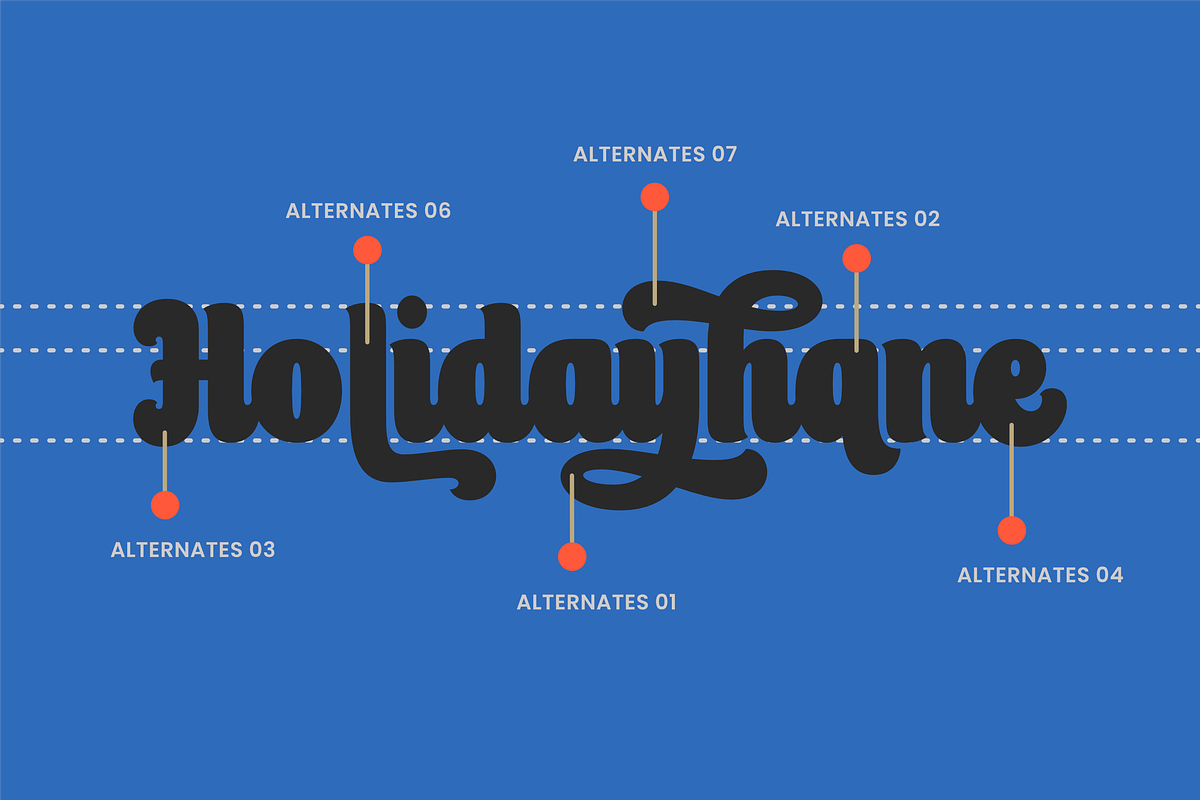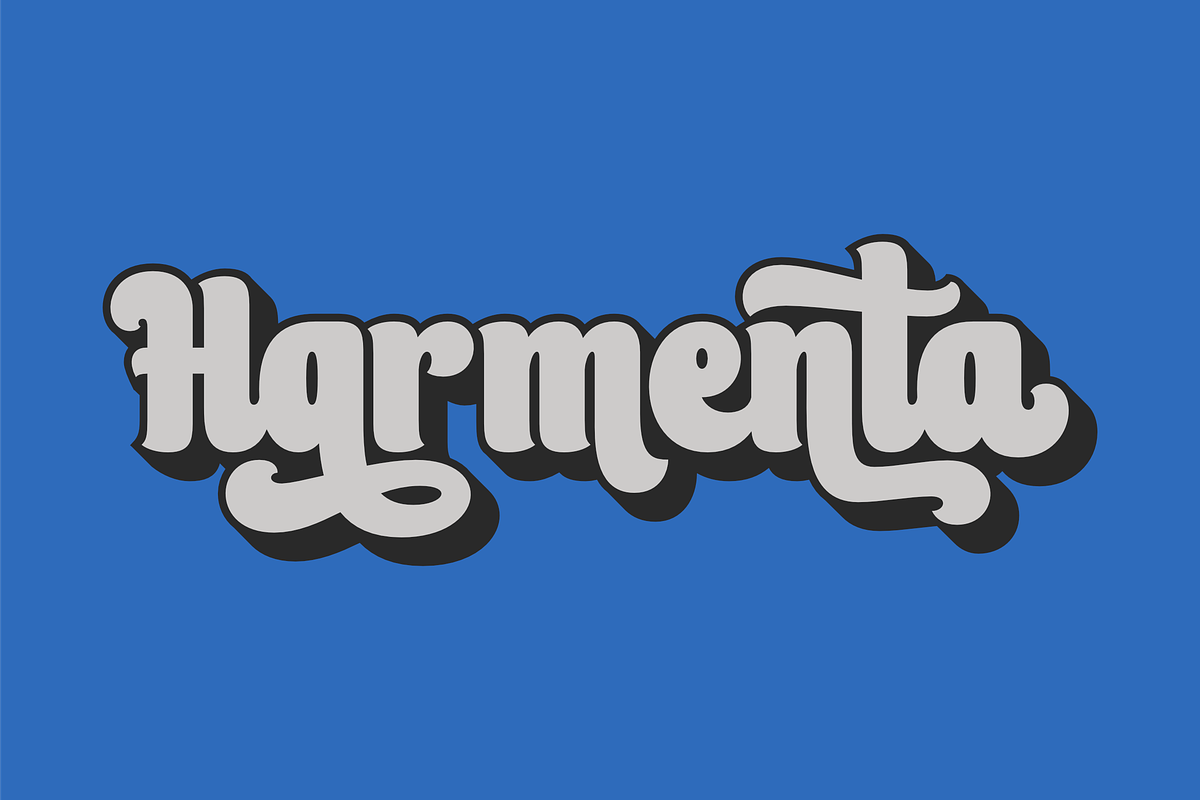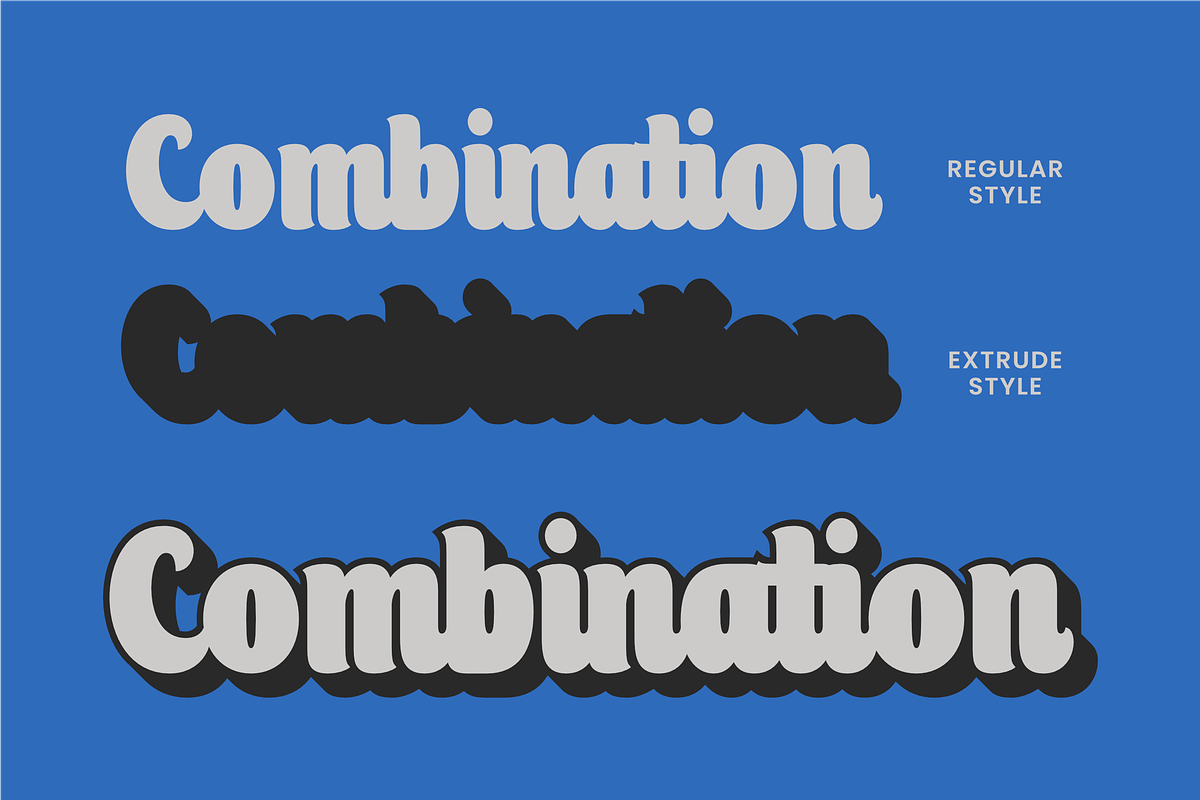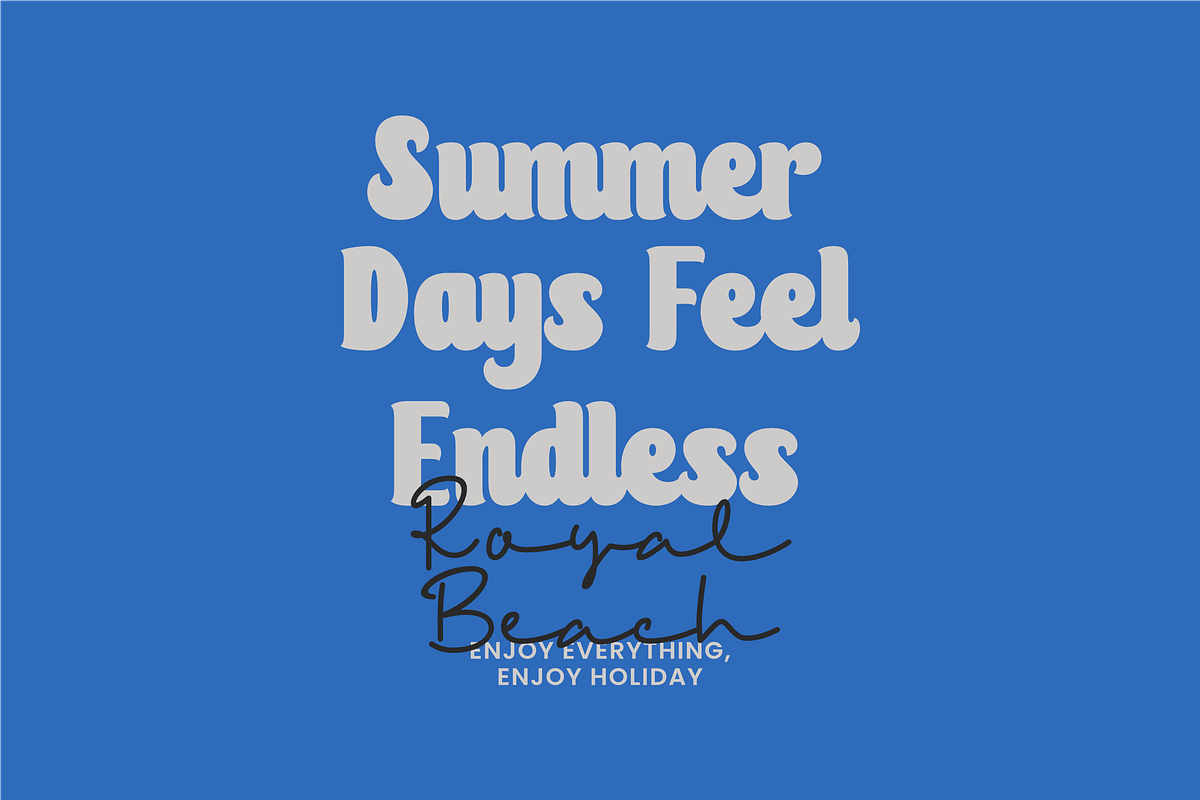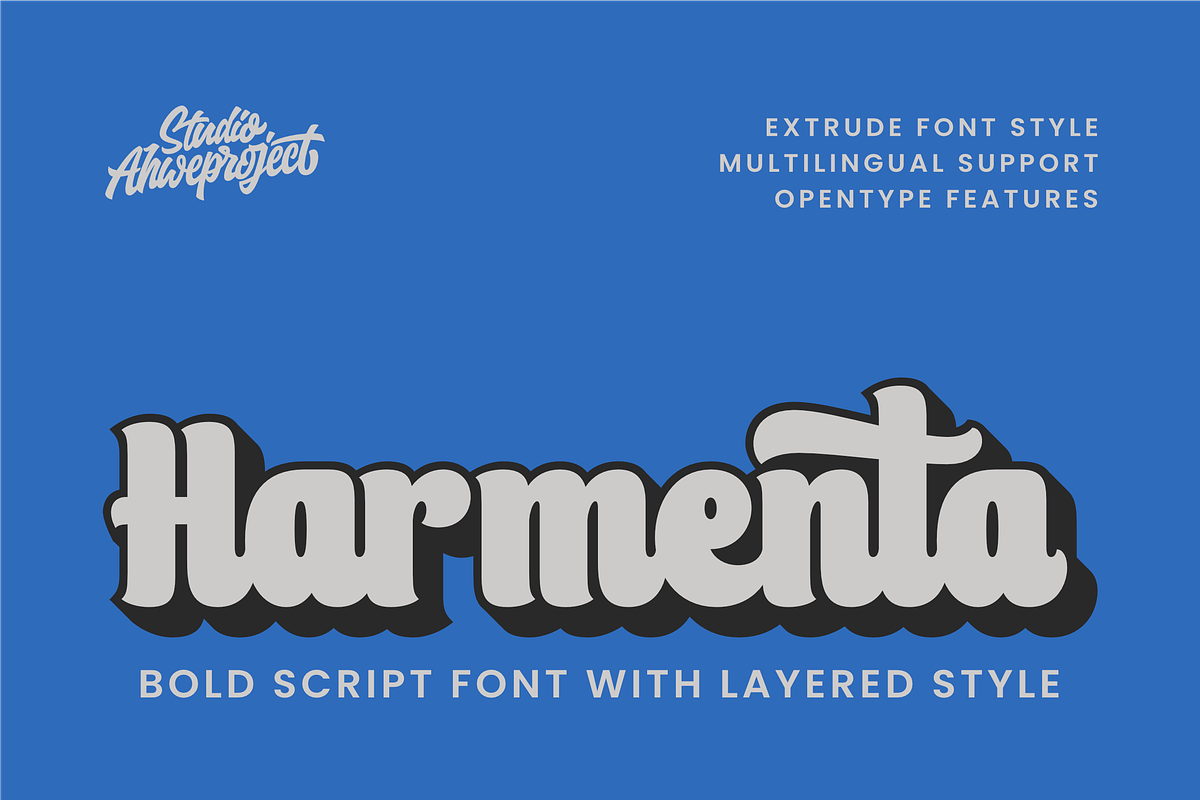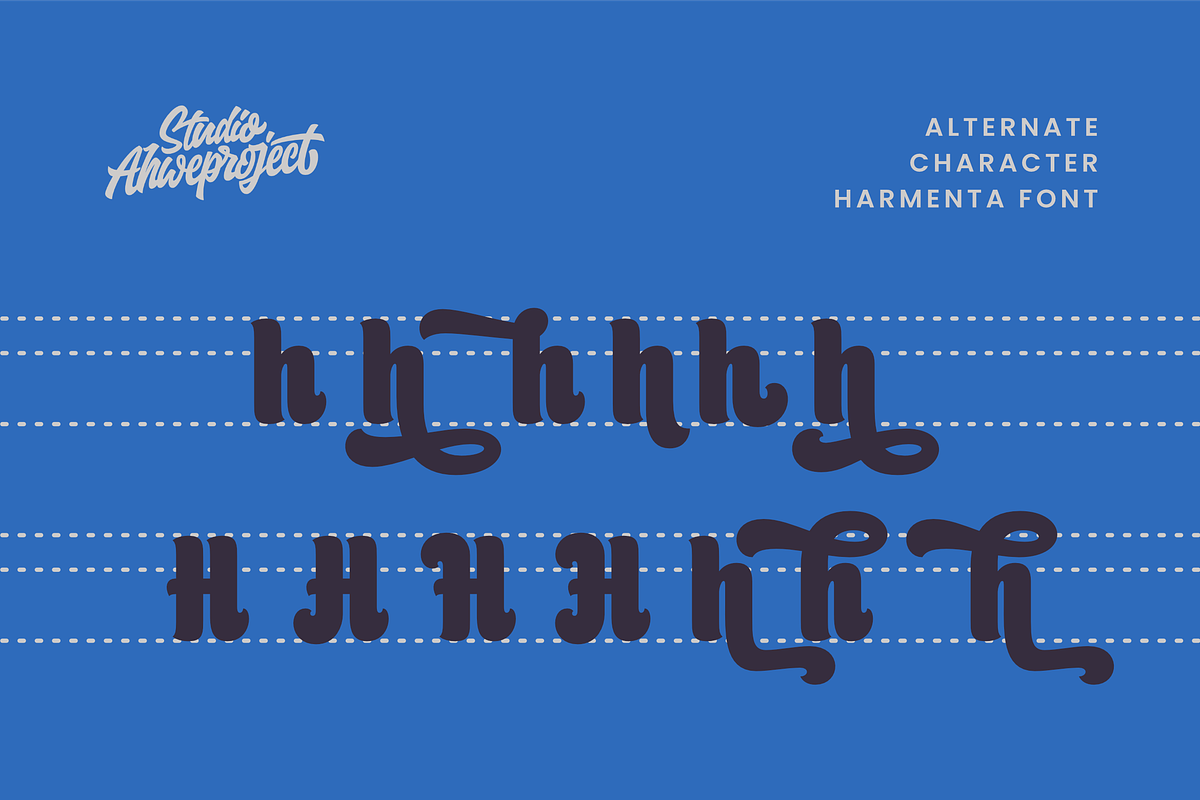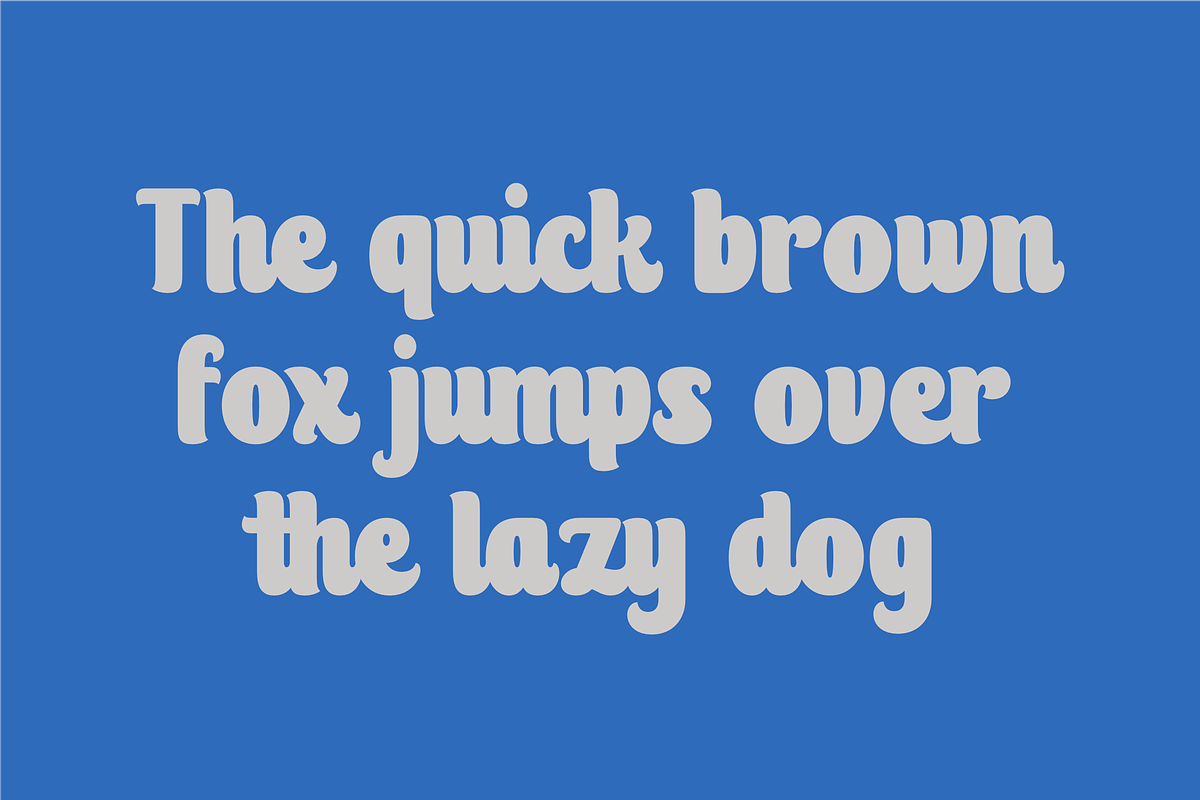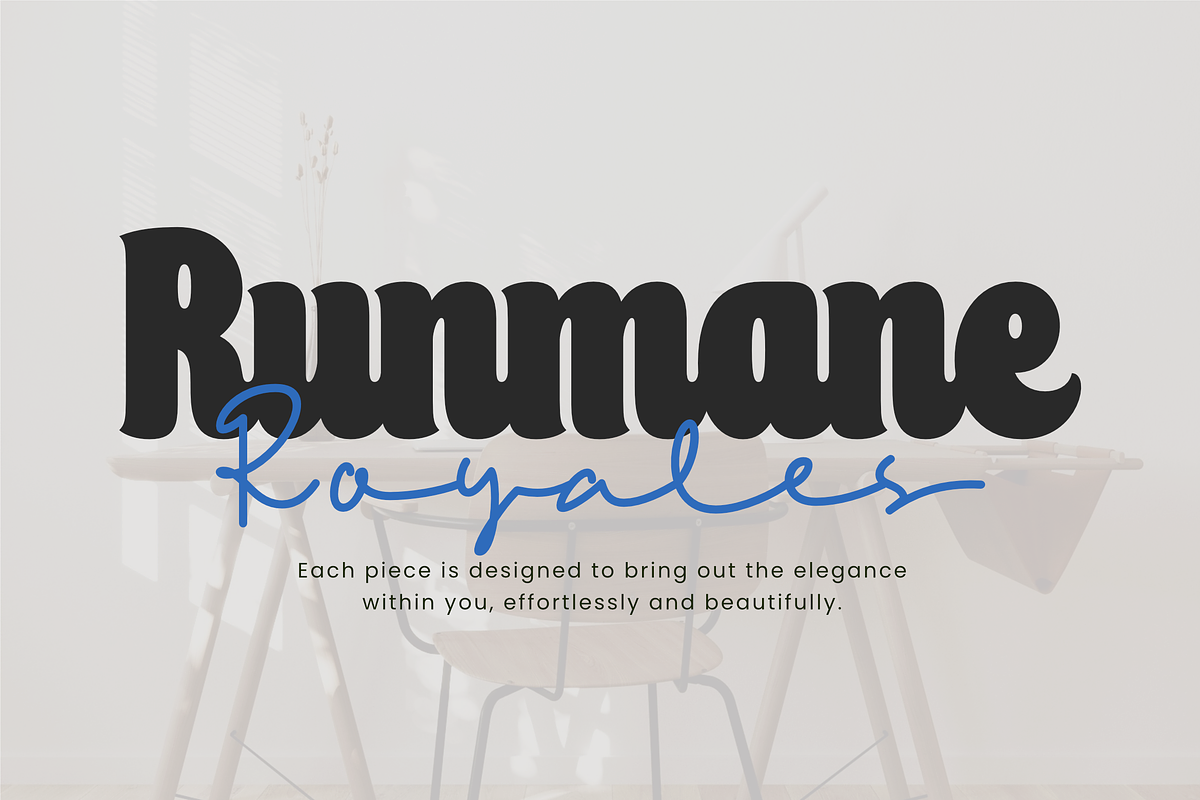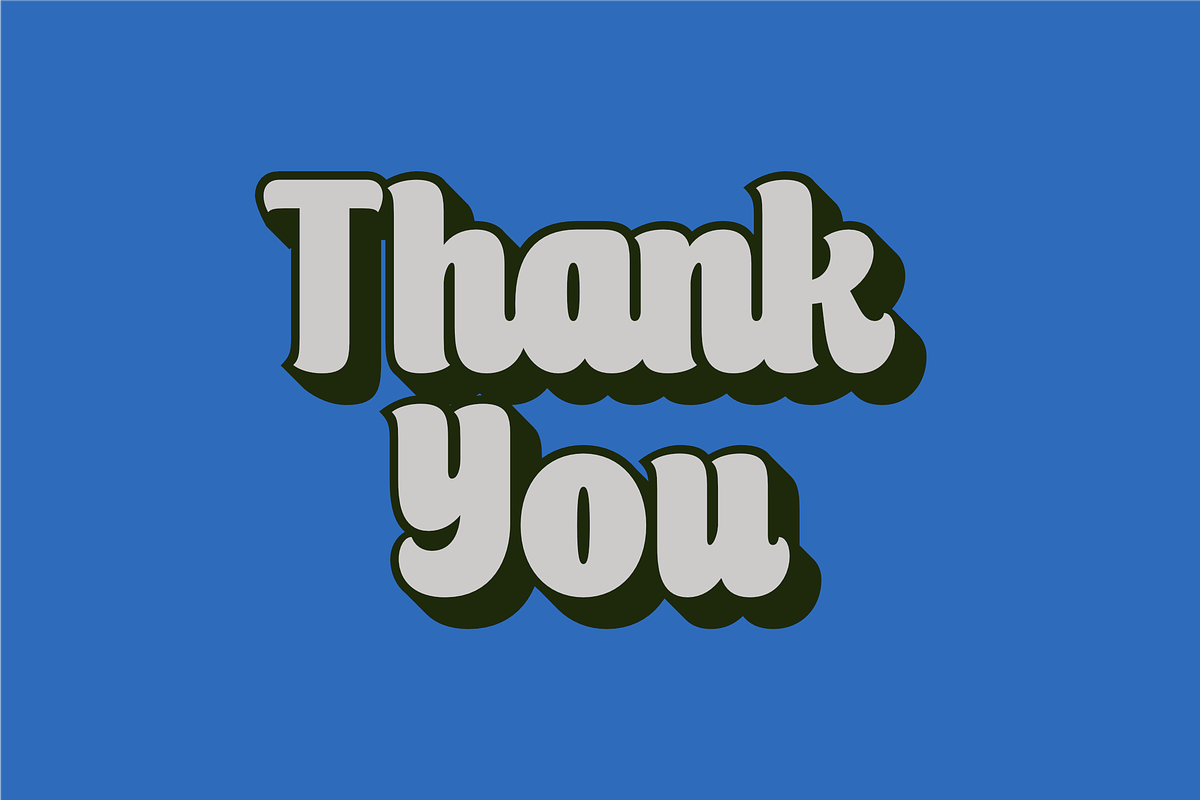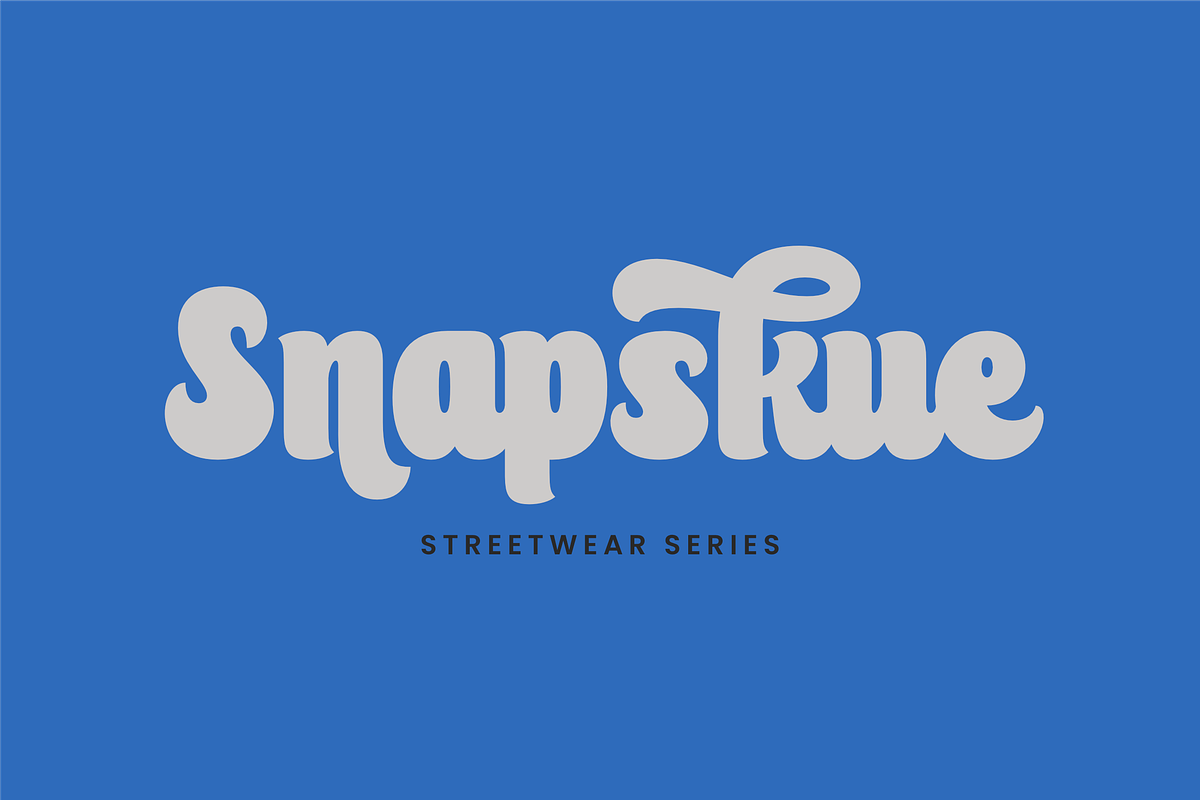
Harmenta
Bring boldness and playfulness to your designs with Harmenta, a bold script font with a layered style that’s made to stand out! Harmenta features thick, smooth letterforms with a touch of modern retro, perfect for branding, packaging, posters, logos, and social media headlines.
This font comes with an extrude (layered) style that creates an eye-catching 3D effect—no extra software needed, just stack and play with colors! Harmenta also supports multilingual characters and includes OpenType features like stylistic alternates to give you more creative flexibility.
Bold script with smooth, flowing shapes
Layered (extrude) style for stunning 3D effects
OpenType features (stylistic alternates)
Perfect for branding, posters, packaging, kids’ projects, and more